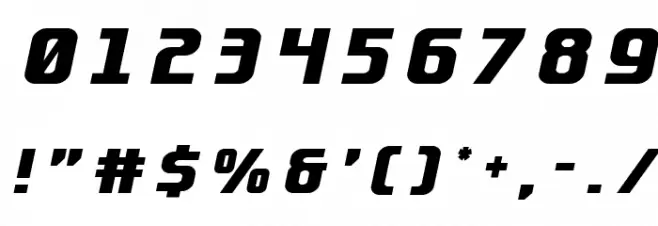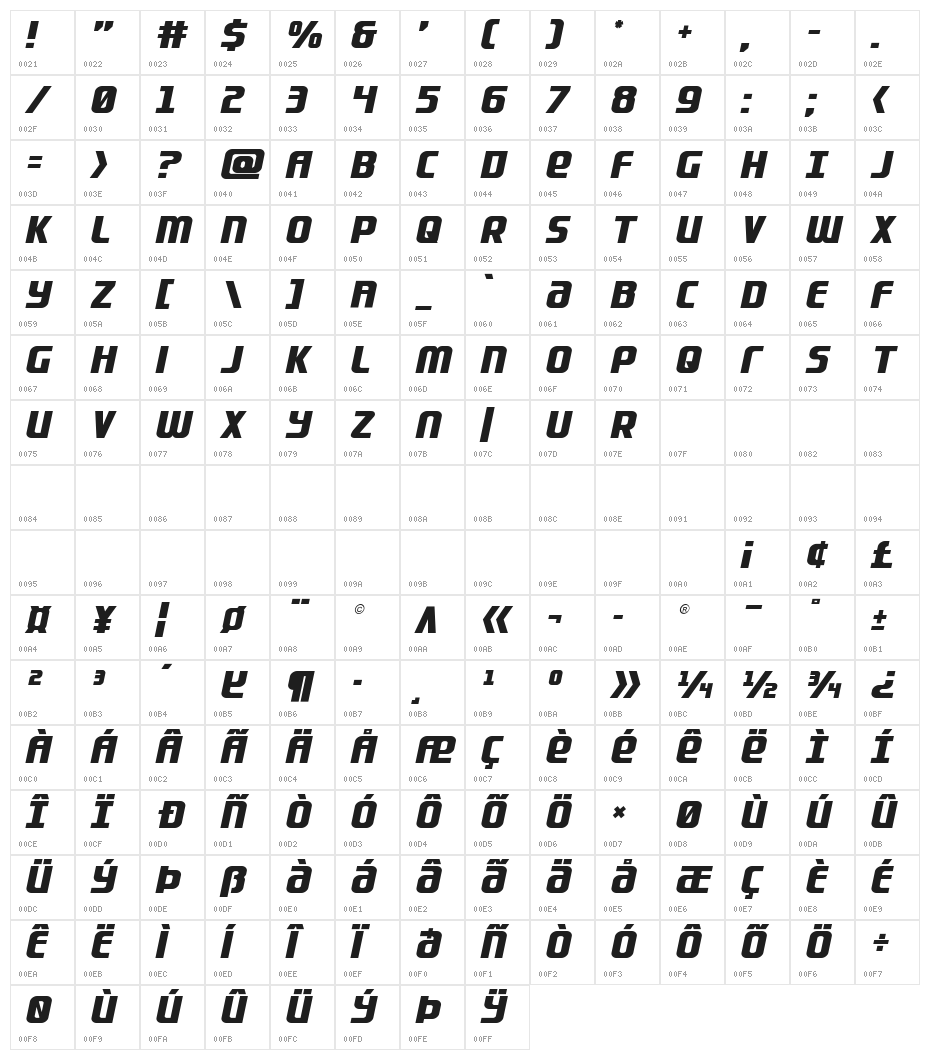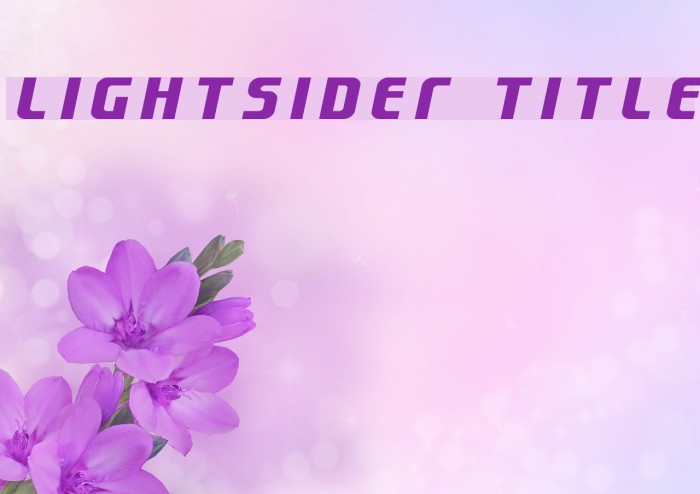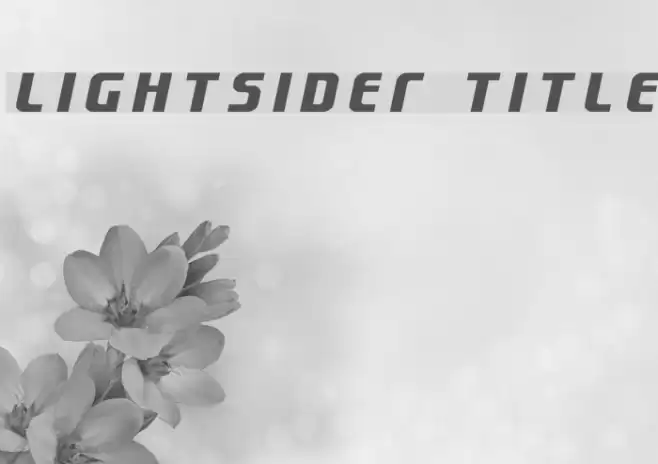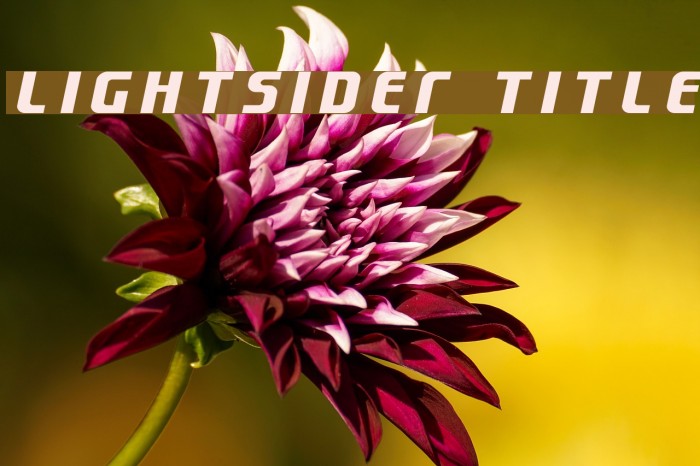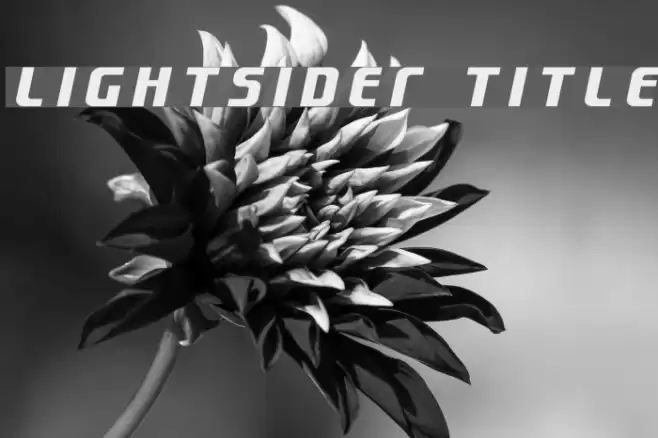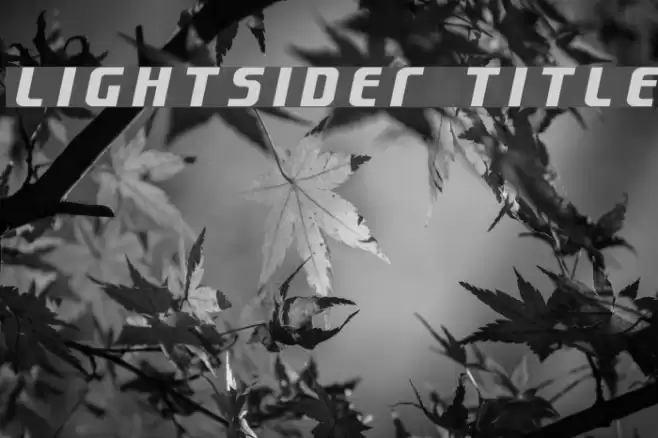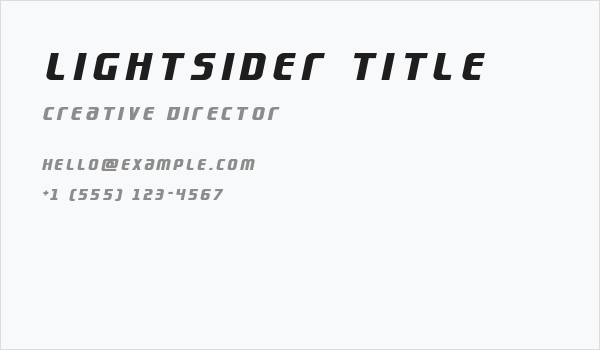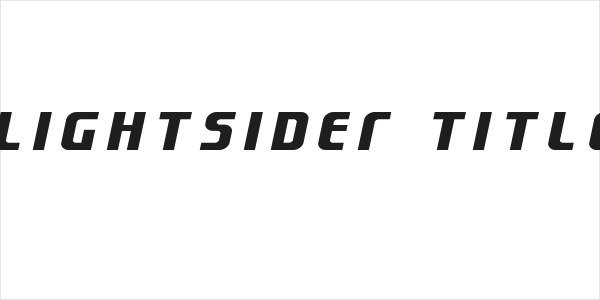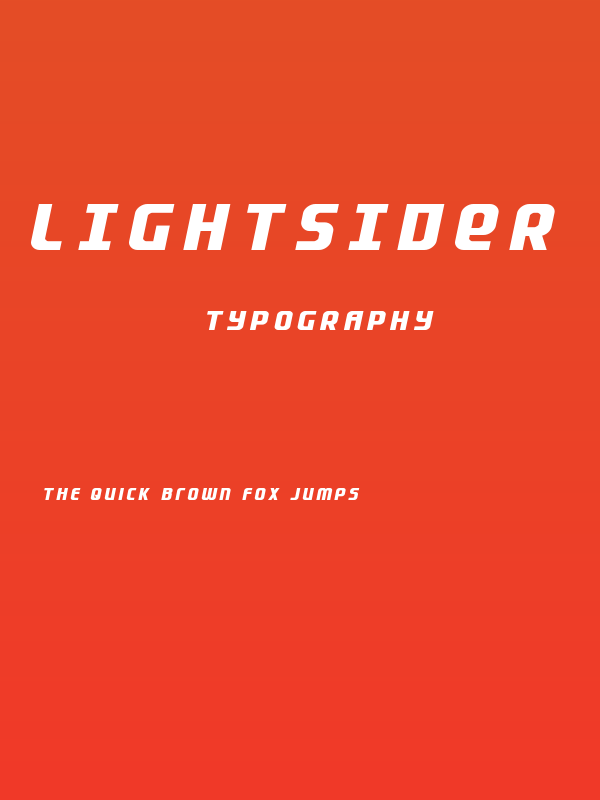
Lightsider Title Font
Lightsider Title Description
This font features a bold, futuristic design with a distinct slant, giving it a dynamic and forward-moving appearance. The characters are geometric and angular, with a consistent stroke width that maintains a strong presence across both uppercase and lowercase letters. The numerals and special characters follow the same stylistic cues, ensuring uniformity throughout. The overall design is clean and modern, making it suitable for projects that require a contemporary and energetic feel.
| Proposed Projects | Ideal for sci-fi themed designs, technology branding, video game titles, and modern advertising campaigns. |